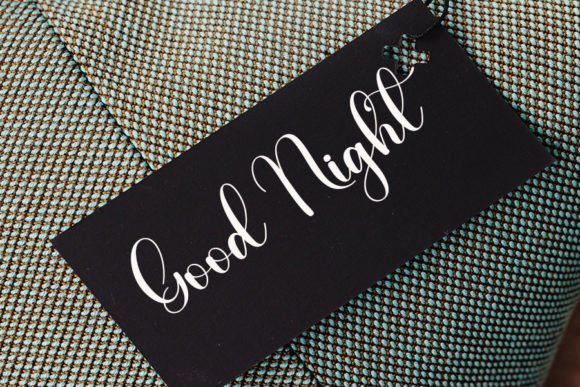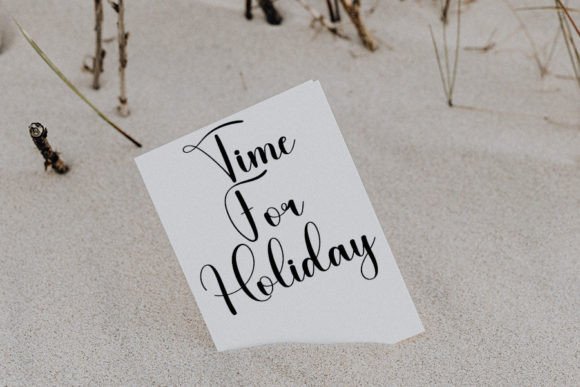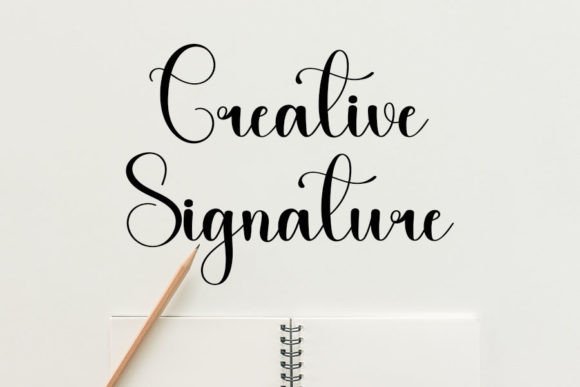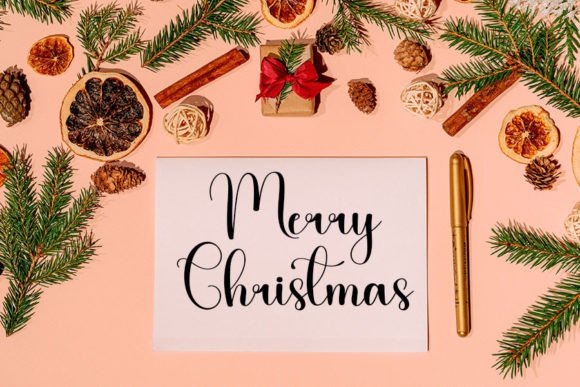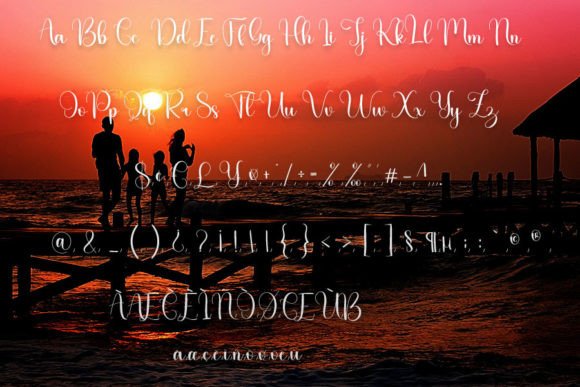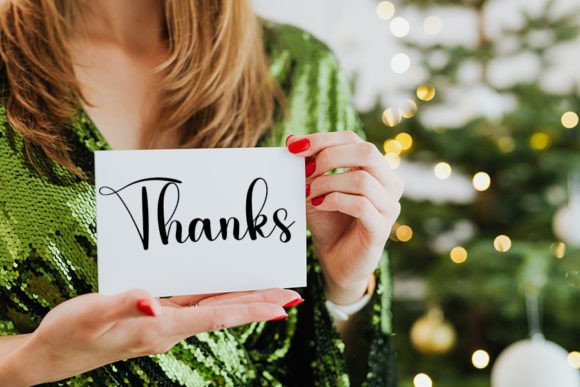
Palm Beach Font
About Palm Beach Font
“Palm Beach” is a sweet and beautiful handwritten font that adds a touch of charm and elegance to your design projects. With characters that gracefully dance along the baseline, this font has the power to infuse a sense of luxury into any creative endeavor you wish to undertake.
The appeal of “Palm Beach” lies in its ability to convey a sense of grace and sophistication. Its handwritten style creates a visually captivating and luxurious aesthetic that can enhance a wide range of design elements, making it suitable for numerous creative applications.
One of the standout features of “Palm Beach” is the way its characters interact with the baseline. This unique characteristic adds a sense of dynamism and elegance to your text, making it perfect for projects where you want to make a lasting impression.
When you incorporate “Palm Beach” into your projects, you can expect your creations to exude a sense of refinement and beauty. This font has the power to make your designs stand out and convey a sense of luxury and style to your audience.
In summary, “Palm Beach” is more than just a font; it’s a design asset that can elevate your creative projects with its sweet and beautifully handwritten style. Its unique baseline interaction and luxurious appeal make it a valuable addition to your design toolkit. You can confidently use “Palm Beach” to enhance any project, as it has the potential to bring a sense of grace and sophistication to your designs!